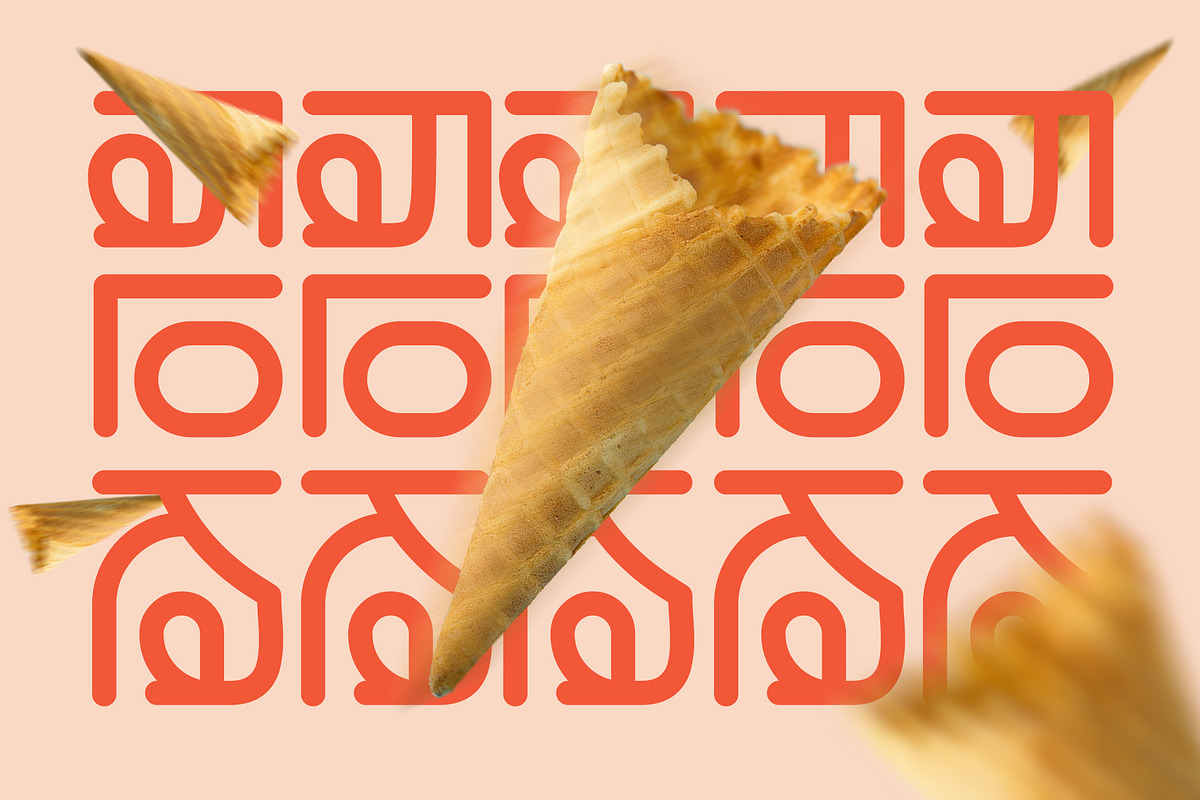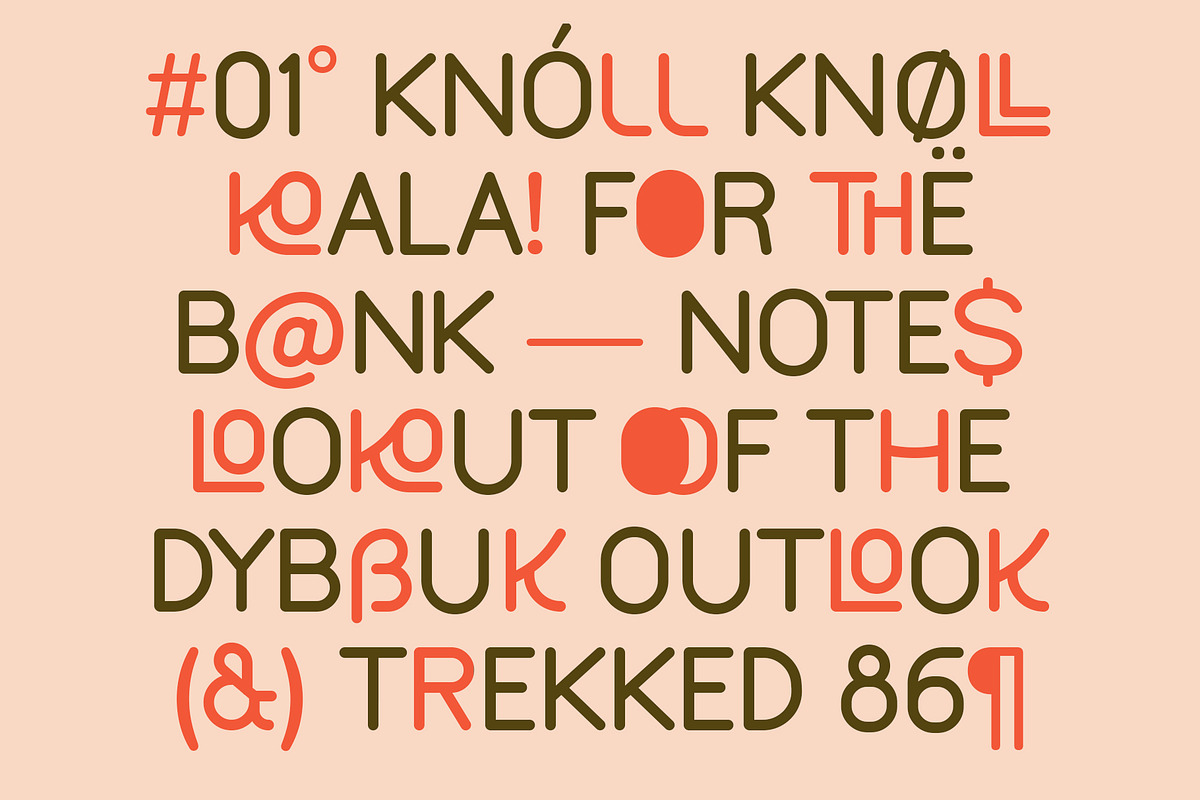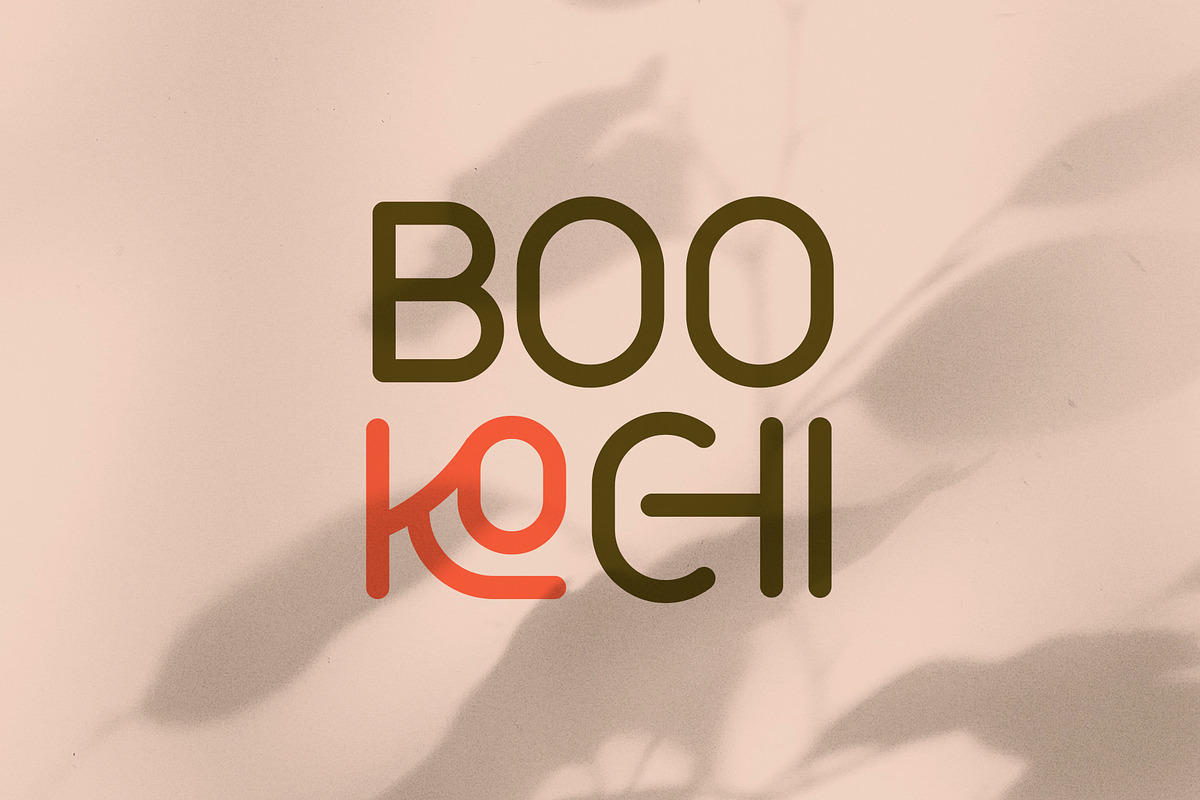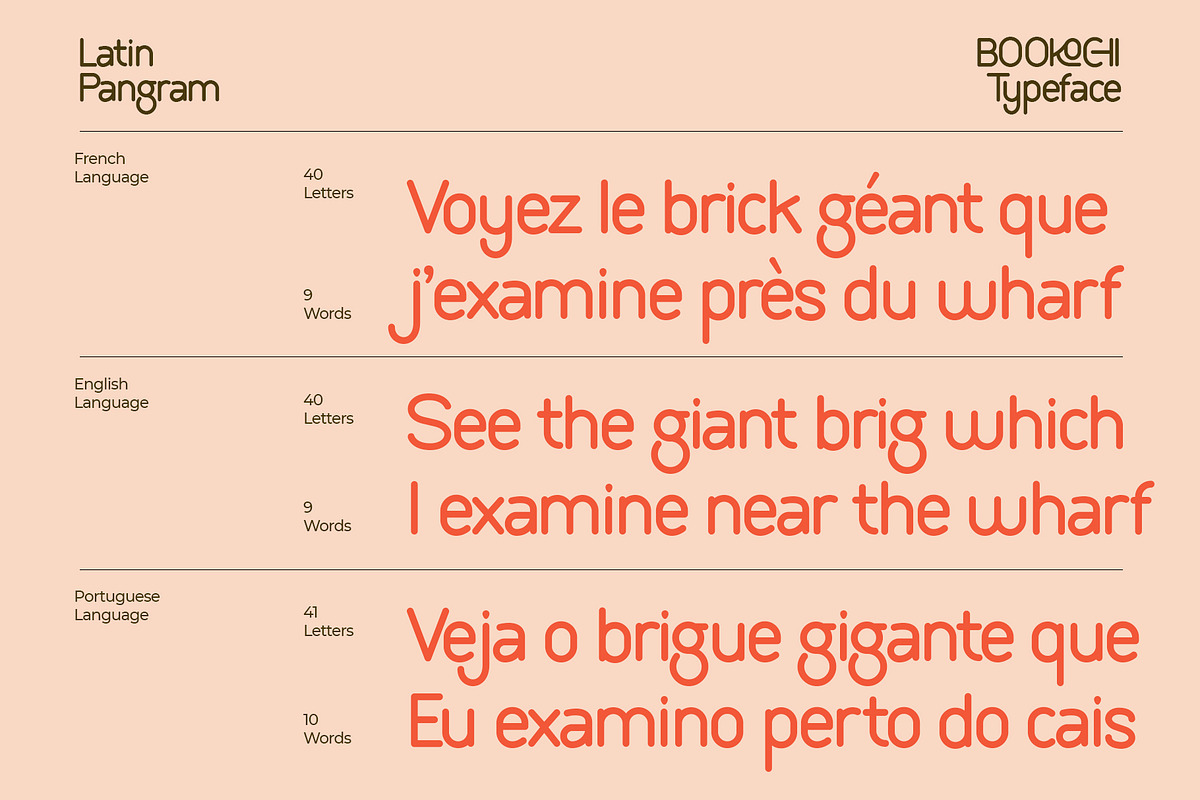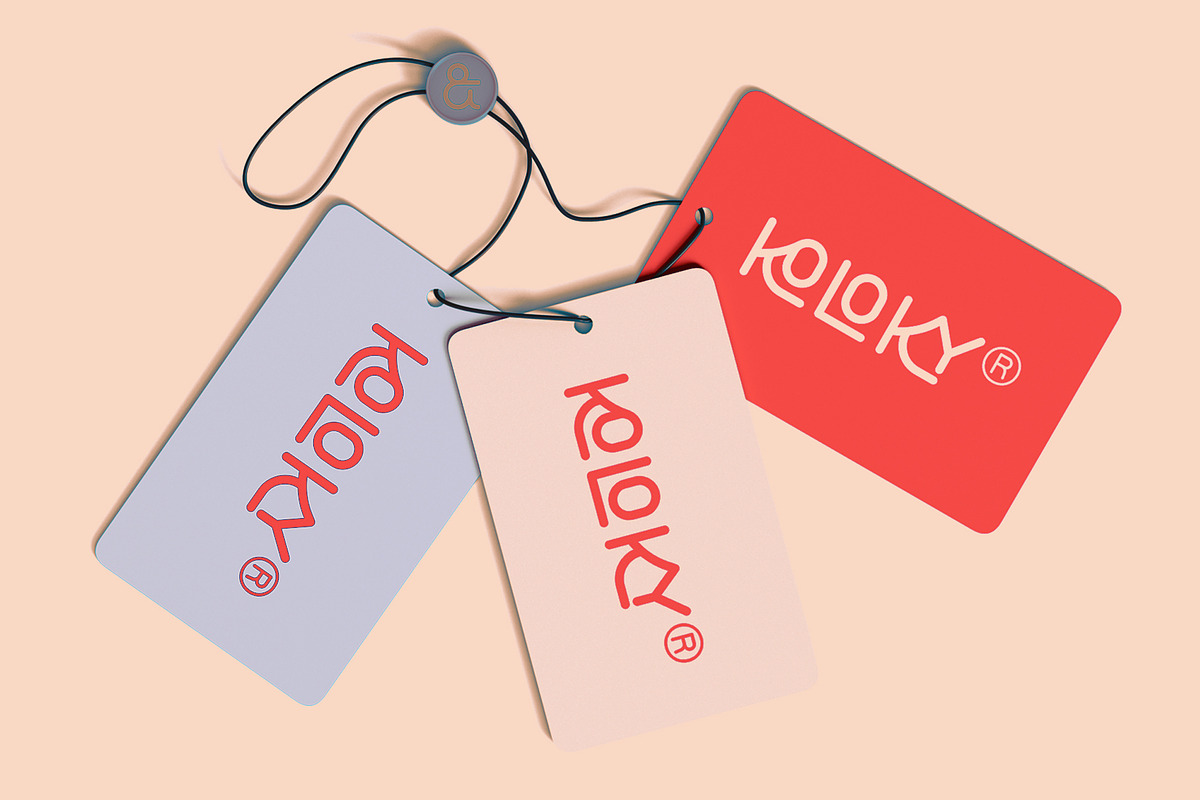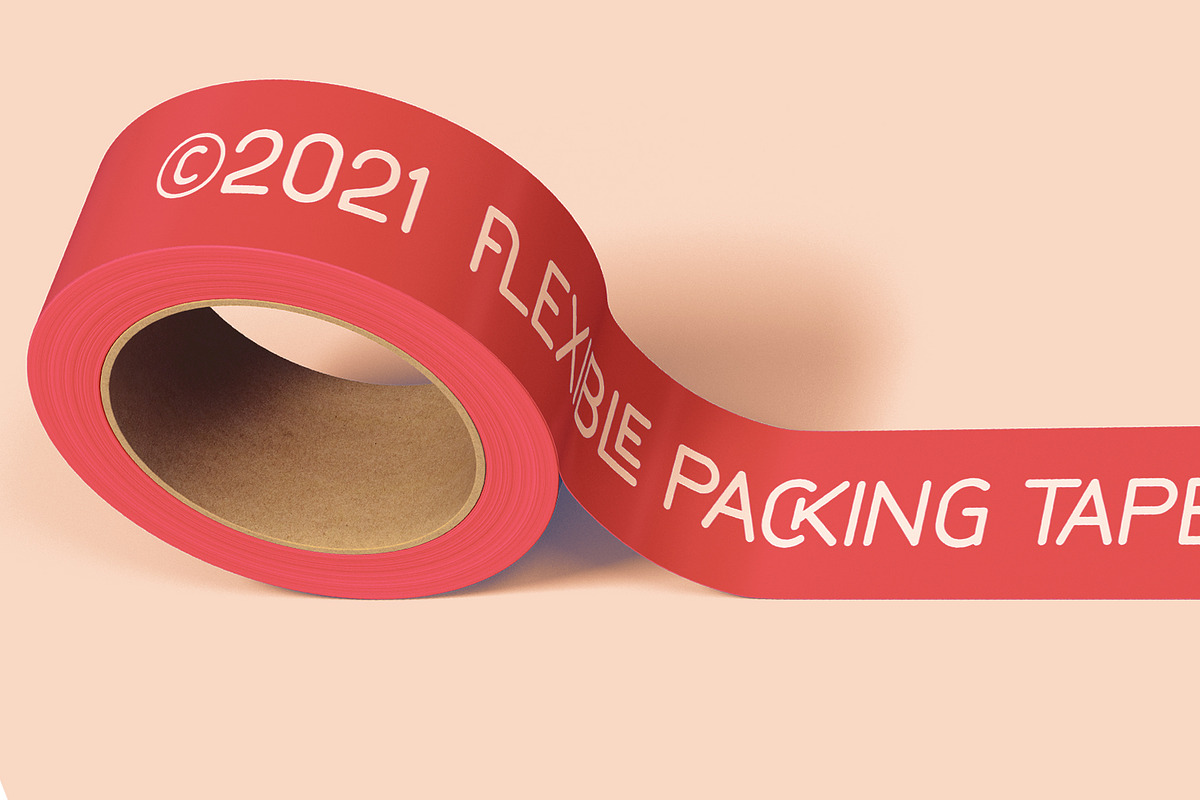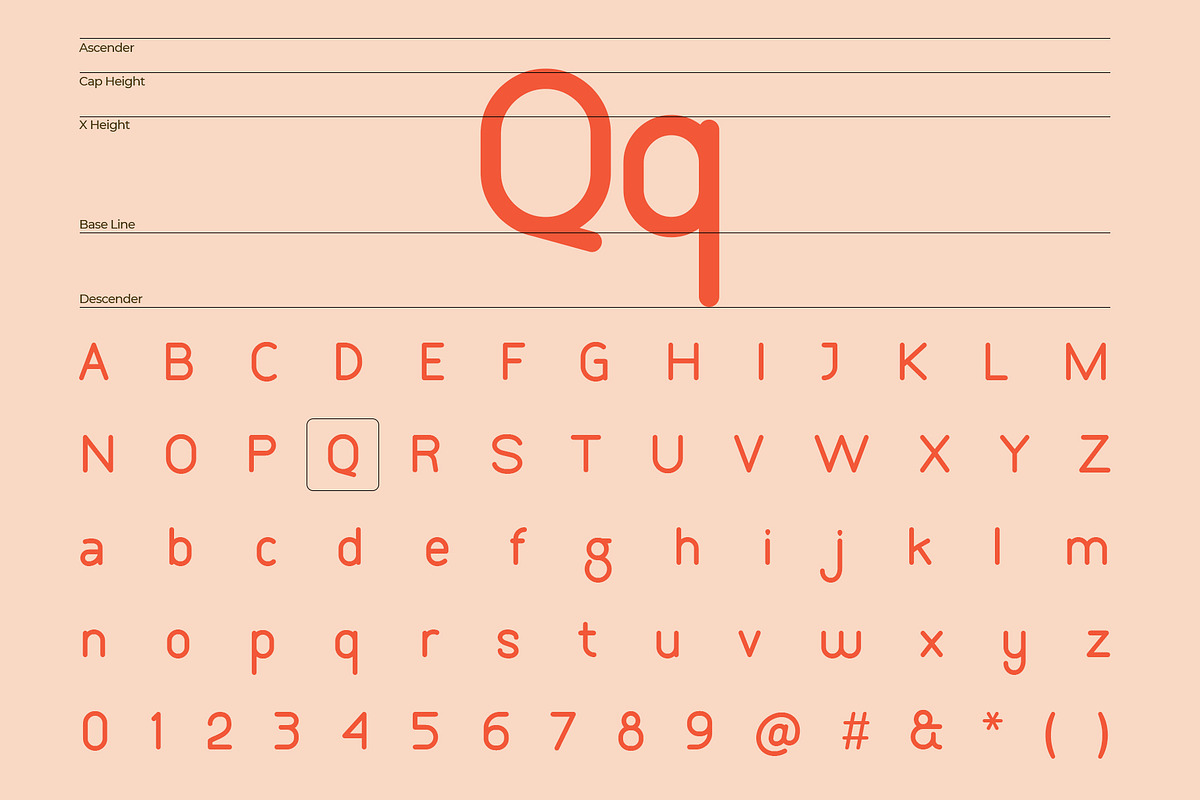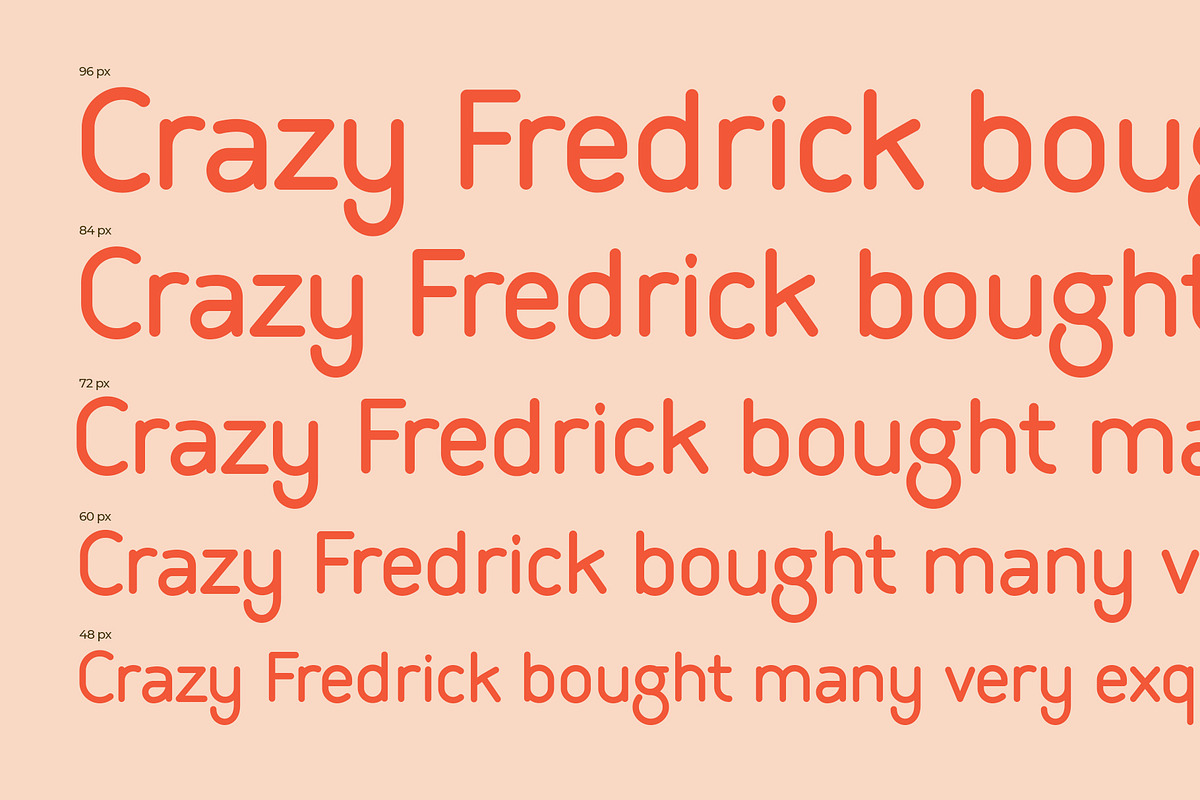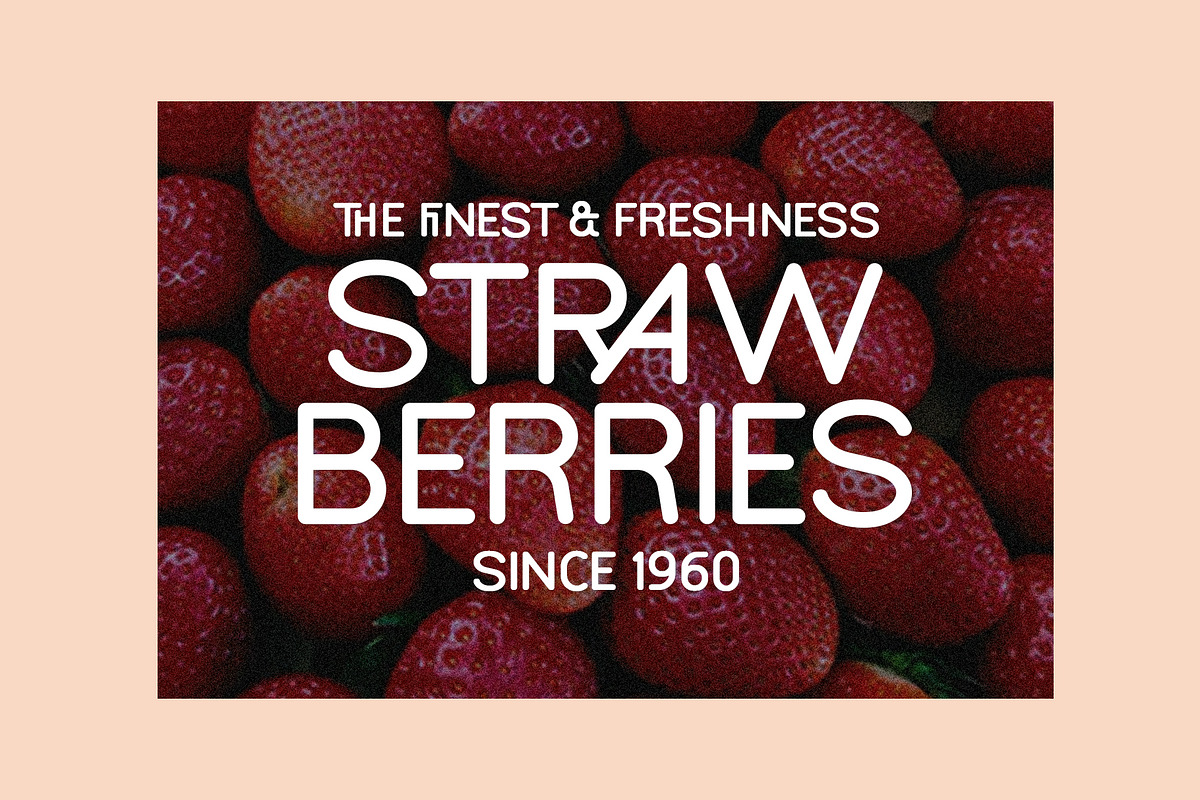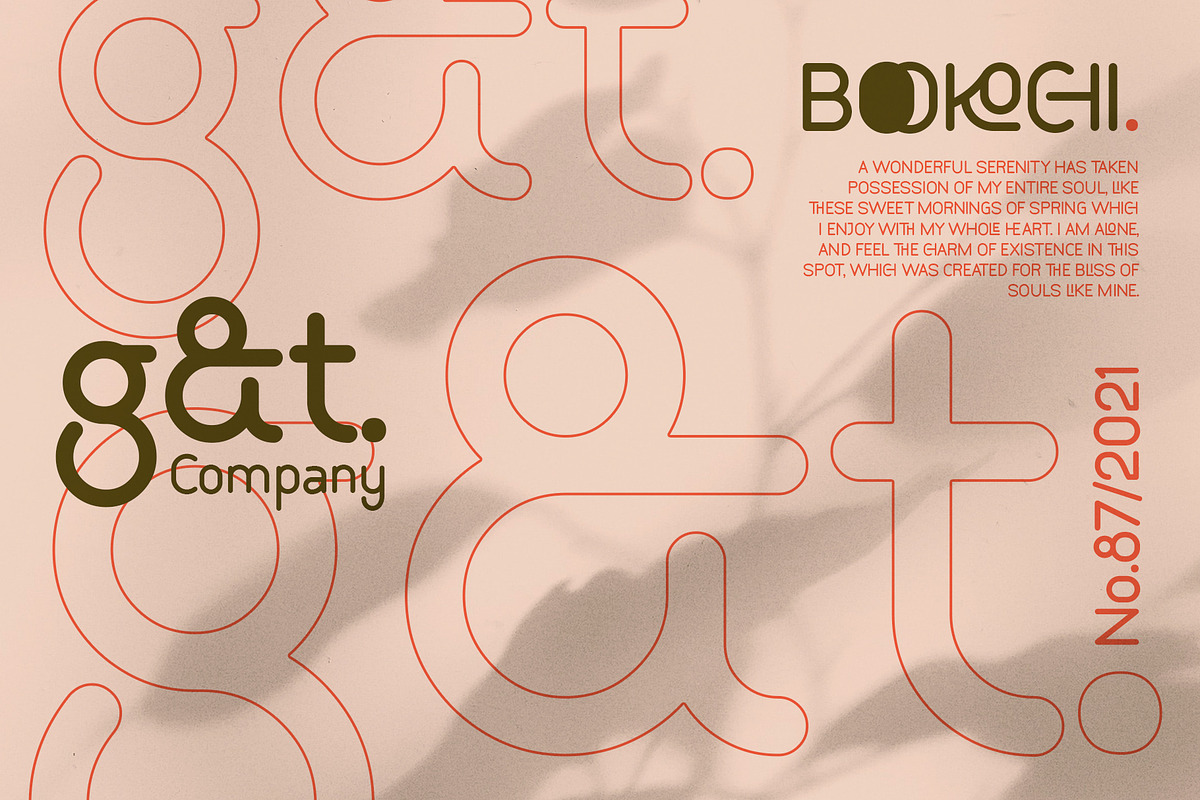
Bookochi Rounded Display Sans Serif
Bookochi is a sans serif typeface with rounded blunt ends. Embedded several alternates such as the character a & g single-storey and charming ligatures on some characters. Support for multi-Latin languages along with OpenType features